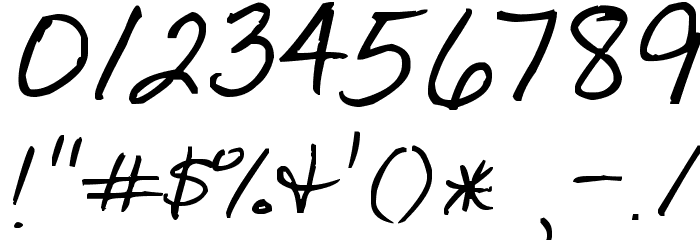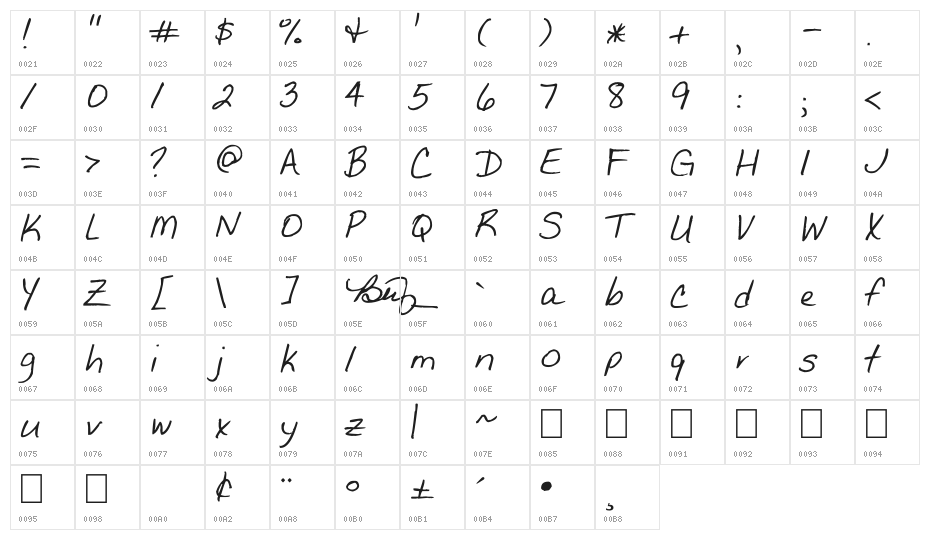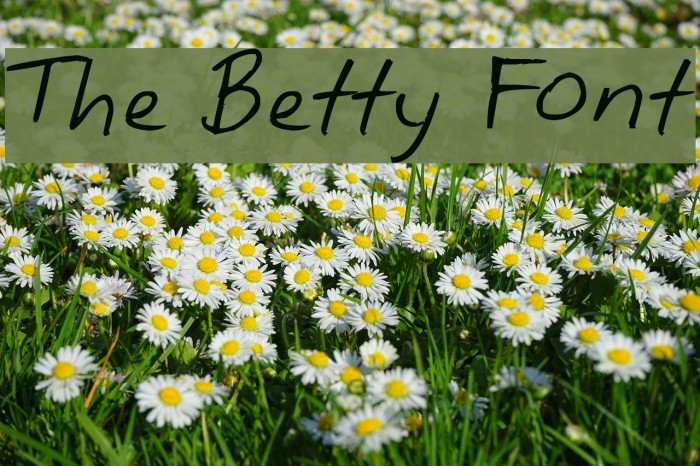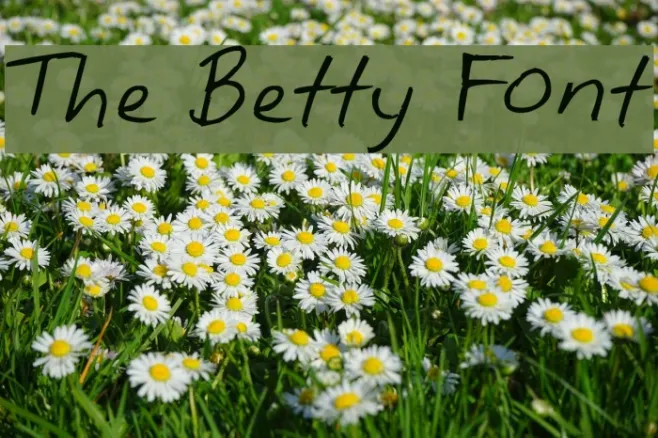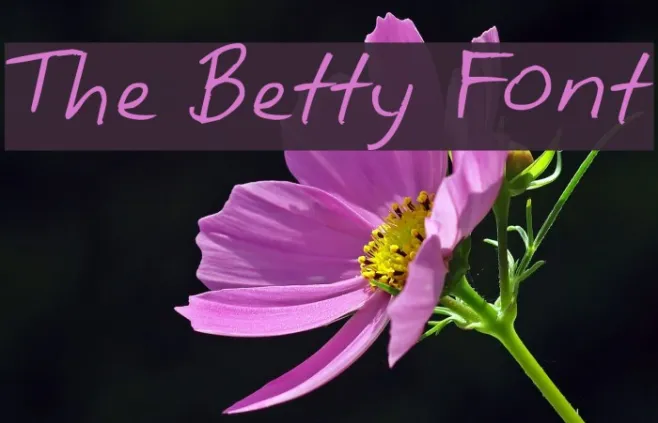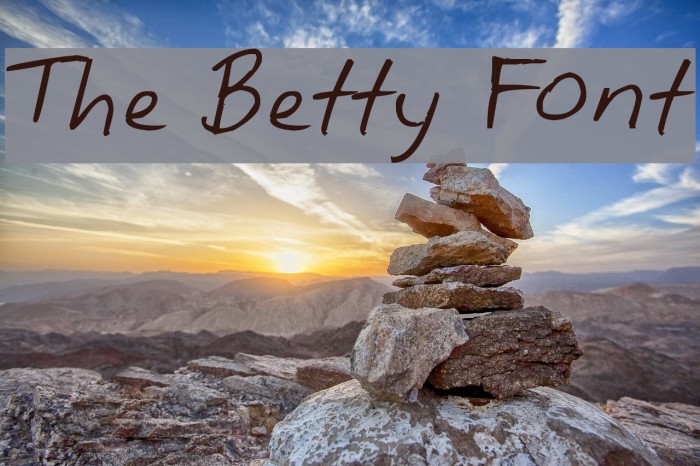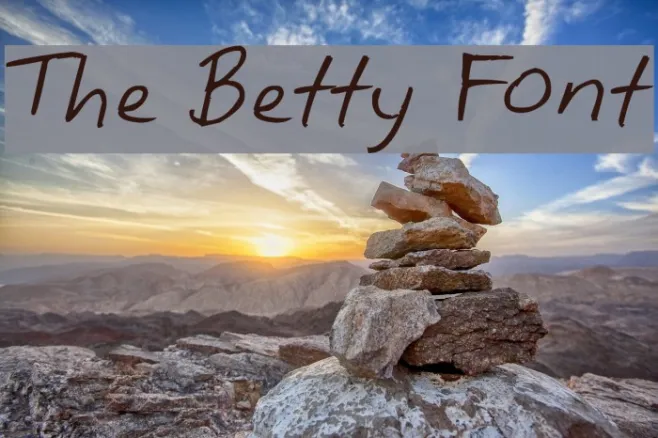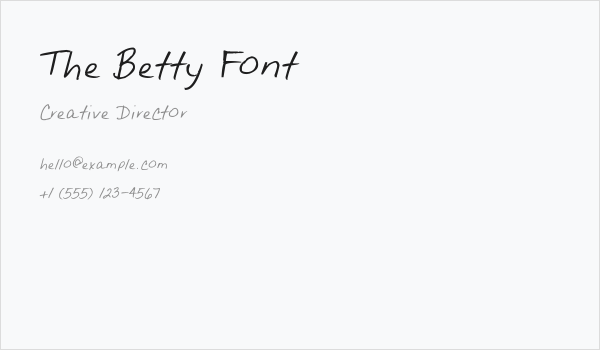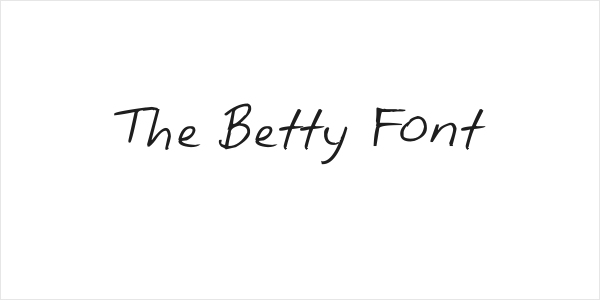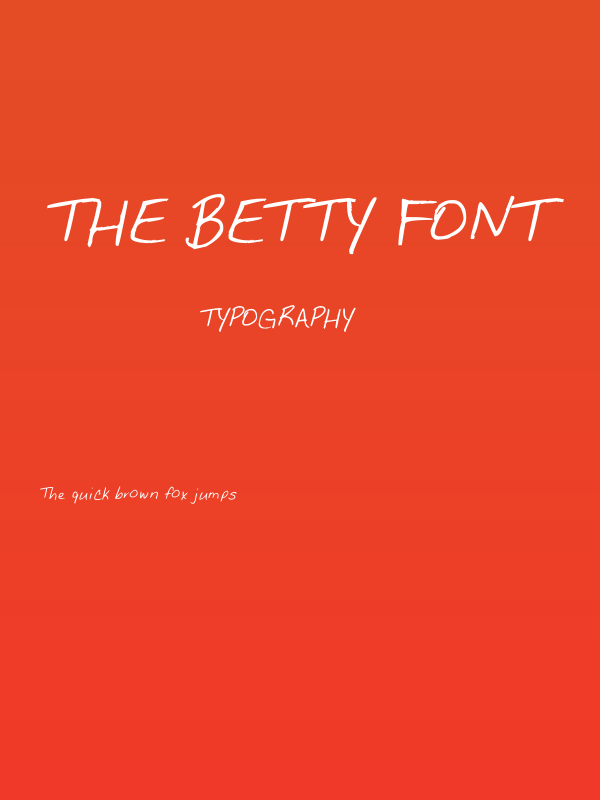
The Betty Font Description
This font exudes a casual and handwritten style, characterized by its fluid and slightly irregular strokes that mimic natural handwriting. The letters are slightly slanted, giving it a dynamic and informal appearance. The uppercase and lowercase letters maintain a consistent style, with rounded edges and a playful touch. Numbers and special characters follow the same handwritten aesthetic, ensuring a cohesive look across all text elements. This font is ideal for projects that require a personal and approachable feel, such as invitations, greeting cards, or creative branding materials.
| Overall Style | Casual, Informal |
| Use Case | Headlines, Logos, Personal notes |
| Proposed Projects | Ideal for invitations, greeting cards, personal notes, and creative branding. |